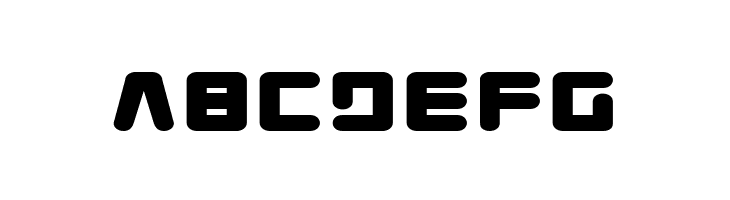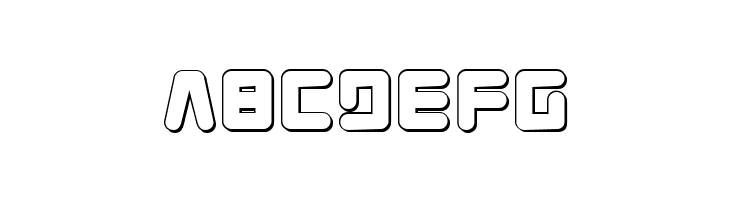
A bold, futuristic font with rounded edges and geometric shapes.
A futuristic, tech-inspired font with bold, geometric outlines and a 3D effect.
A bold, futuristic font with rounded edges and a condensed, tech-inspired design.
A bold, italicized font with a futuristic and dynamic design.
A bold, futuristic font with rounded edges and a double-outline effect.
A bold, italicized font with a futuristic and sleek design, ideal for tech themes.
A futuristic 3D italic font with outlined, geometric characters.
A bold, futuristic font with rounded edges and a geometric structure.
Popular choices include Young Techs Expanded, Young Techs 3D, Young Techs Condensed, Young Techs Italic and Young Techs Academy — fonts known for their balance between modern and timeless. They look great on web pages, social content, and packaging, bringing a clean yet expressive feel.